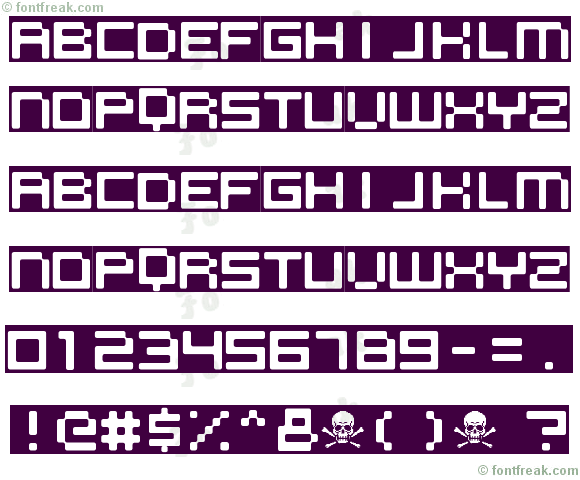
BIG_GIPSY_BRO
Introducing the BIG_GIPSY_BRO font by woodcutter Manero, a striking display typeface that combines boldness with an eclectic flair. This freeware font stands out with its unique character, making it perfect for a variety of creative applications. The BIG_GIPSY_BRO font features a distinctive blocky style, characterized by thick strokes and geometric forms that convey a sense of strength and personality. The contrasting elements, including playful decorative skull motifs, add an intriguing visual depth while maintaining a clean and legible appearance.
The spacing in this typeface is well-balanced, ensuring that each letter commands attention without overwhelming the viewer. This font is particularly suited for eye-catching designs, making it ideal for use in wedding invitations, music event posters, restaurant menus, and even merchandise branding. Its bold aesthetic resonates well with audiences looking for something unconventional and memorable.
Graphic designers, small business owners, and content creators will find the BIG_GIPSY_BRO font free download to be a valuable asset in their toolkit. It allows for creative freedom in crafting unique visuals that capture the essence of a brand or event. The font's playful yet assertive design makes it versatile enough to suit a variety of themes, from rustic and vintage to modern and edgy.
What truly sets the BIG_GIPSY_BRO font apart is its ability to blend fun with functionality, allowing designers to make impactful statements through typography. With its distinct character, this font not only enhances visual storytelling but also invites audiences to engage with the content on a deeper level. Whether you're designing for print or digital media, the BIG_GIPSY_BRO font is sure to leave a lasting impression.